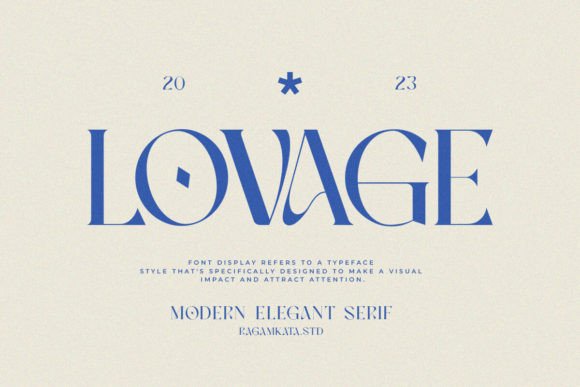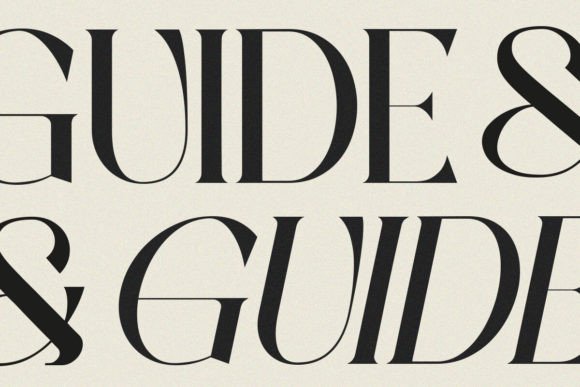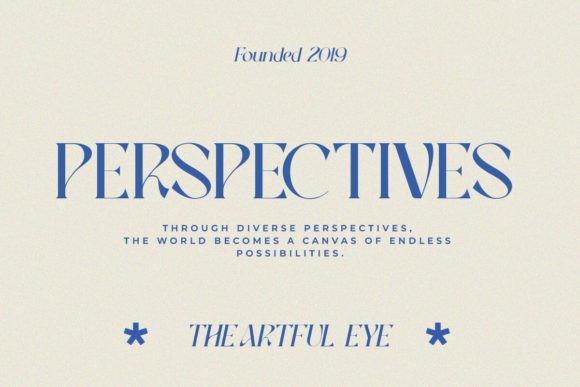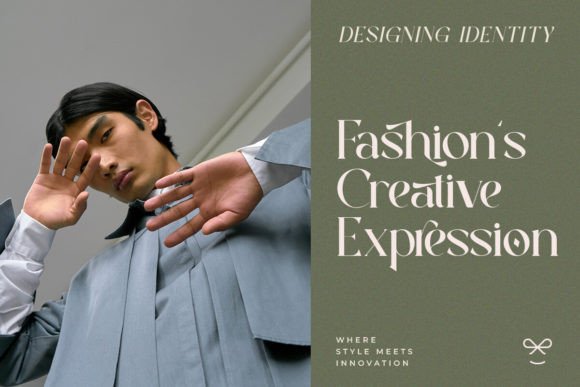
Lovage Font: Modern Serif Typography for Elegant Branding
About the Lovage Font
Explore the possibilities with Lovage Font, a font that offers both beauty and functionality. Lovage is an elegant and bold serif font. Fall in love with its incredibly versatile style and use it to create gorgeous wedding invitations, beautiful stationary art, eye-catching social media posts, and much more!
This font is specially designed for fashion-themed projects, perfectly suitable for creating elegant, chic, lifestyle designs such as logos, titles, magazines, and more.
Lovage’s strong serifs and confident strokes make it ideal for headlines, logos, and short impactful text on packaging or posters. It excels in branding for luxury goods, fashion, or high-end services where a sophisticated yet bold aesthetic is desired. Avoid using it for large blocks of body text or UI elements; its elegance is best showcased in concise applications.
To complement Lovage’s bold elegance, consider pairing it with a clean sans-serif like Montserrat for body text or a delicate script font like Great Vibes for added flair in specific design elements. A geometric sans-serif such as Futura could also provide a modern contrast, creating a visually striking combination.
Lovage projects an air of refined boldness. It’s sophisticated but not stuffy, making it suitable for brands that value quality, style, and a memorable visual identity.
Lovage Font Usage Examples